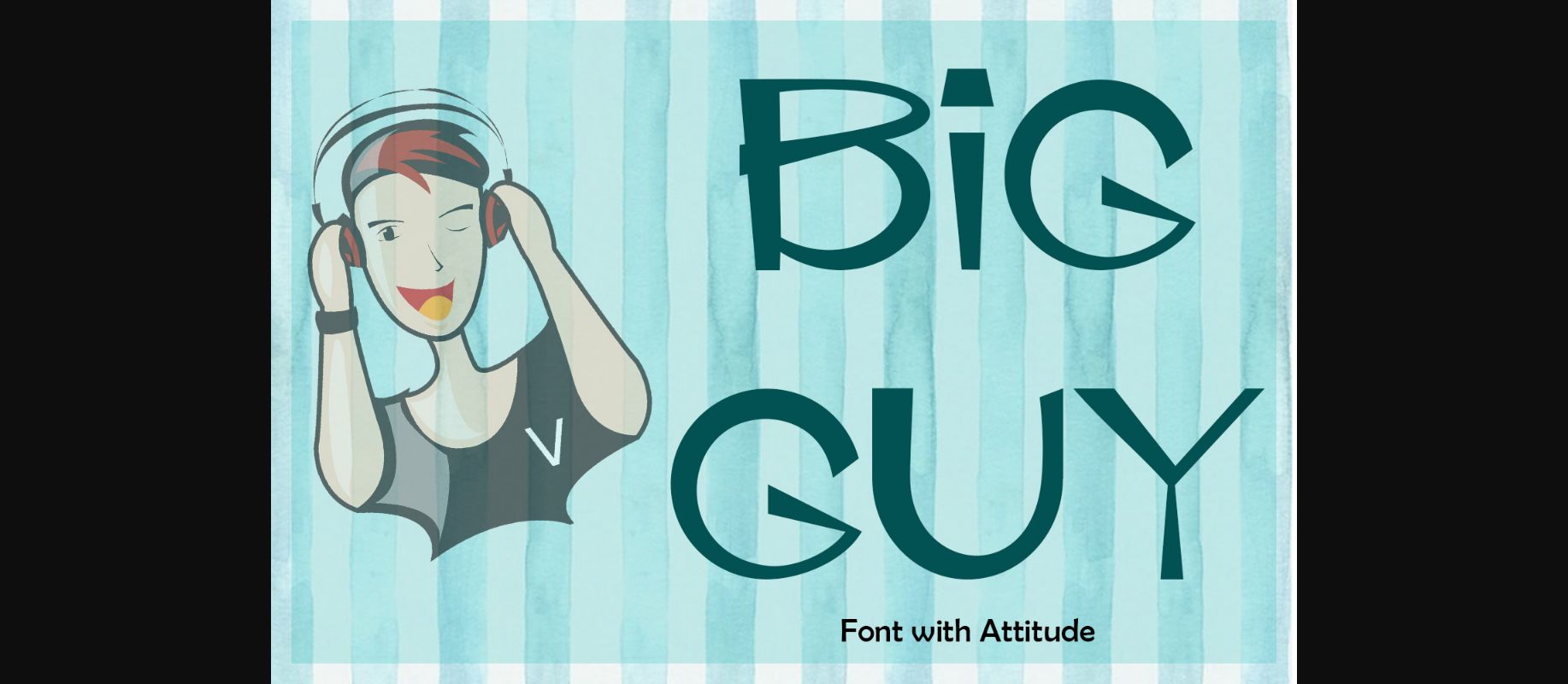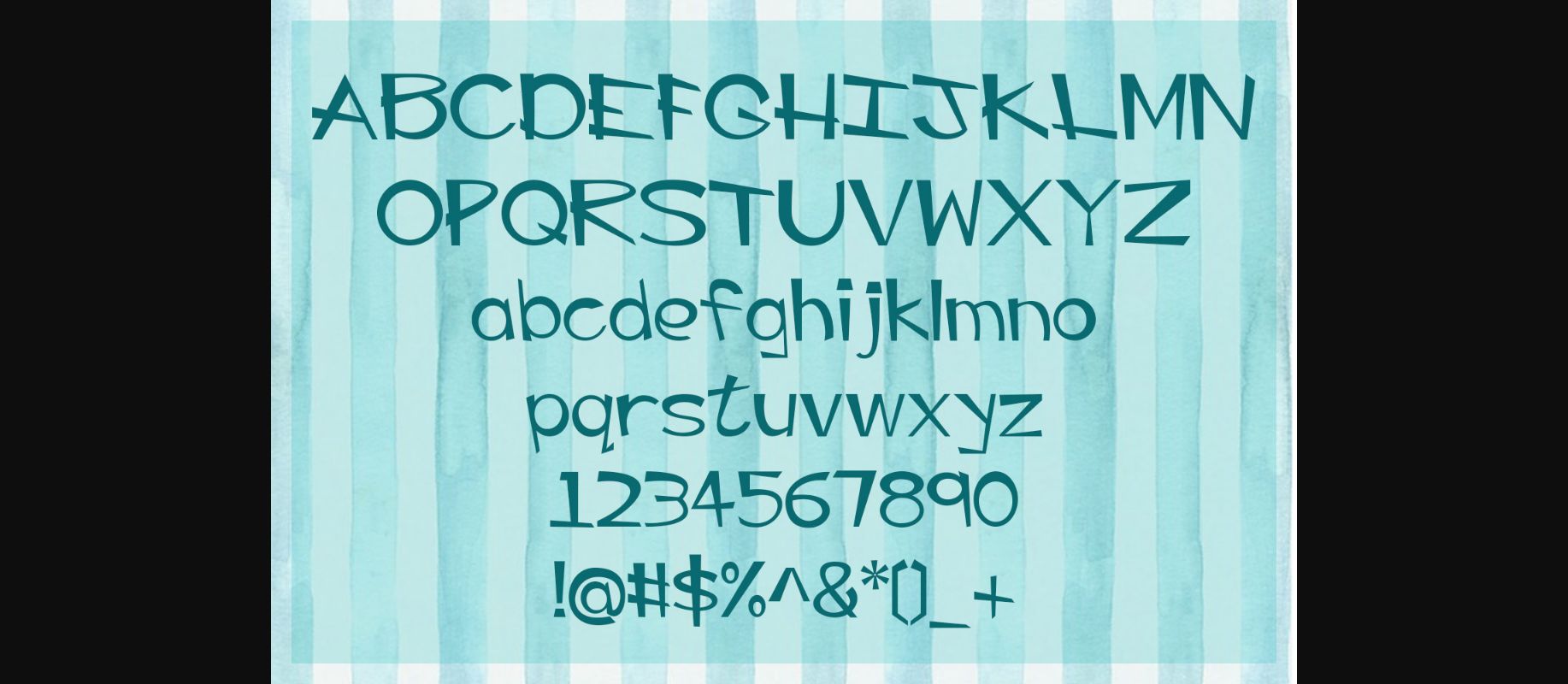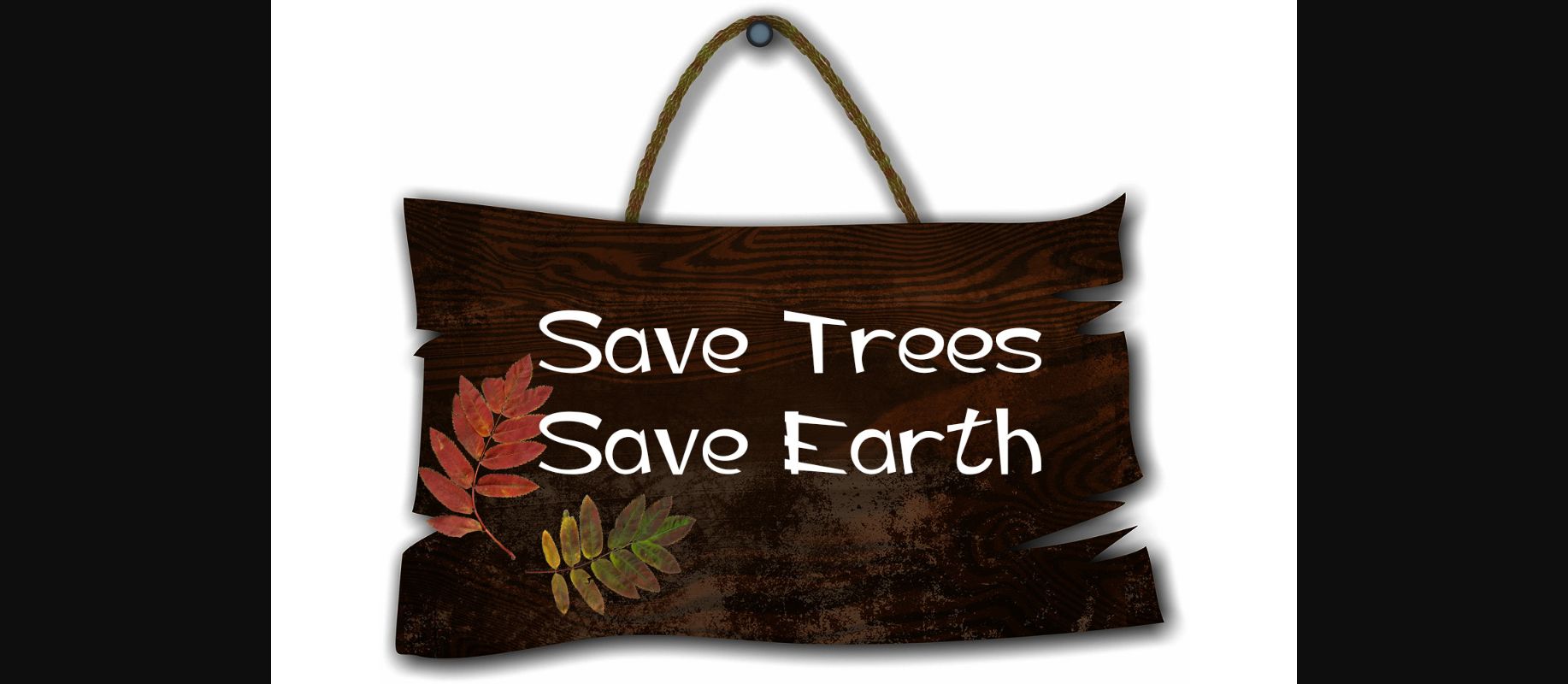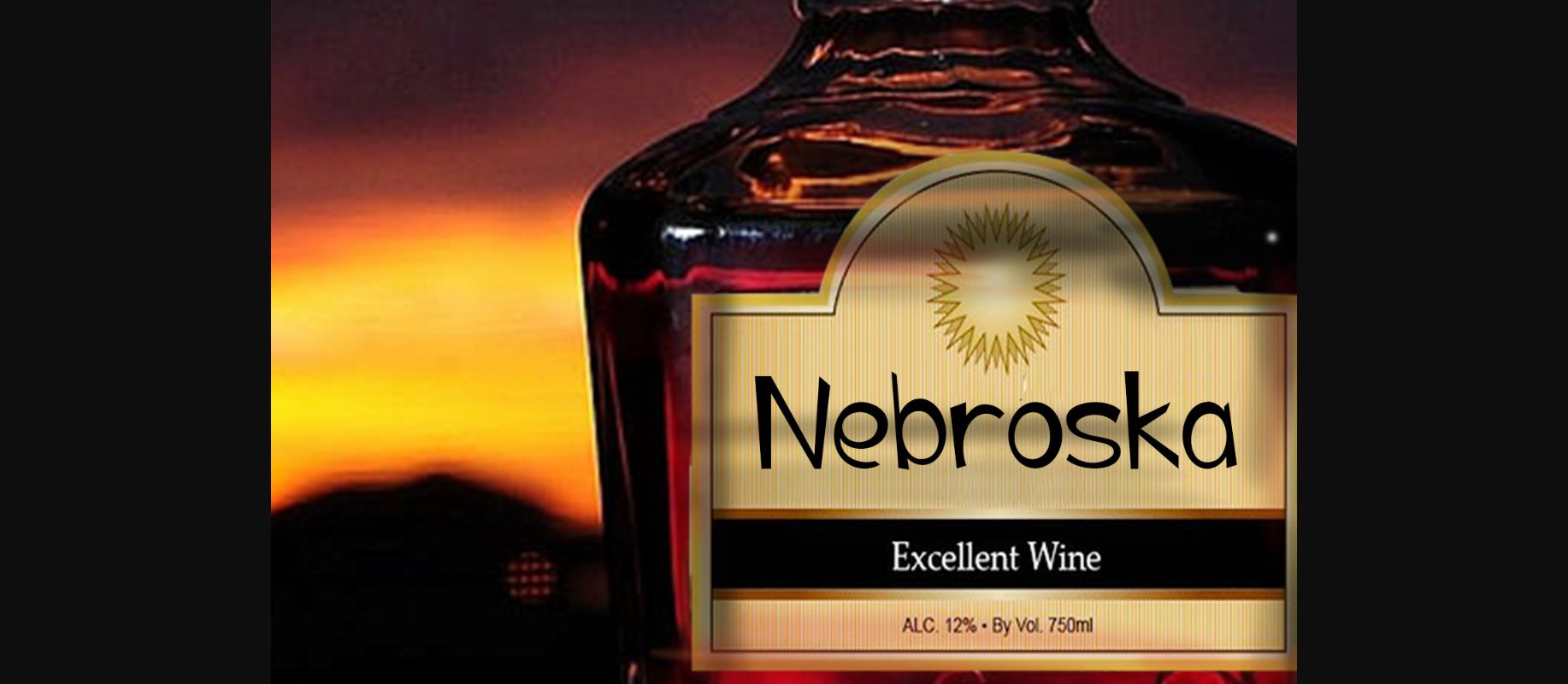
About Big Guy Font
Big Guy is a funky display font, perfect for use in a wide range of creative works! This font has a bouncy appeal, and can a clean yet casual feel to your work.